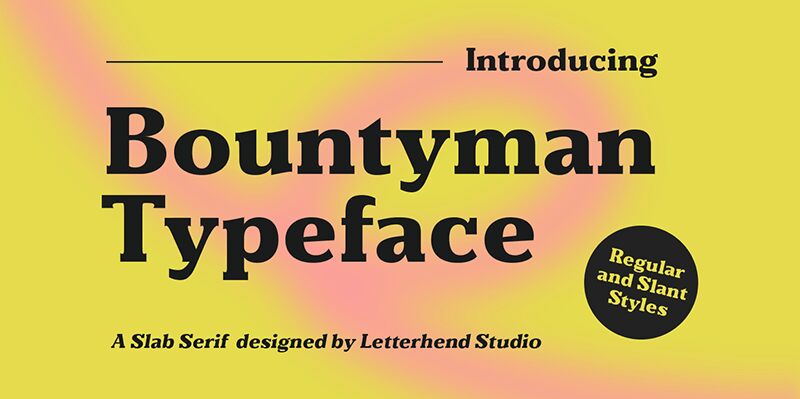
Bountyman font is a classical bold serif font designed by Letterhend Studio. With stately characters on display, the font comes with an authoritative feel that’s hard to miss. The hint of tradition and historical references makes the typeface loosely connected to a typical Didone design from old book headings.
Use Bountyman in invitation cards, headlines, logo designs, labels, search engine banners, mobile app interfaces, packaging designs, books and magazine titles or body text. This free serif font will also look fabulous on clothes tags and signage for educational institutions in addition to schools.